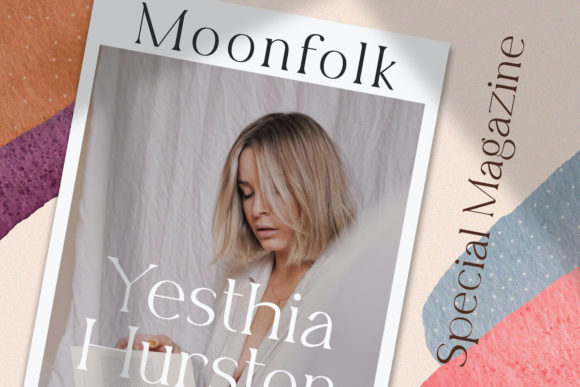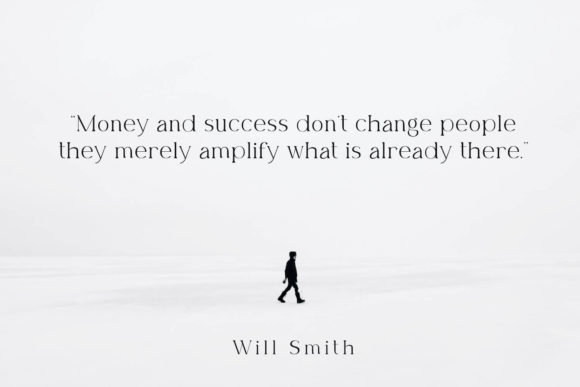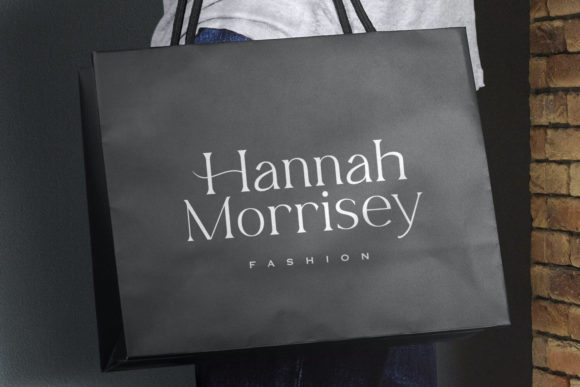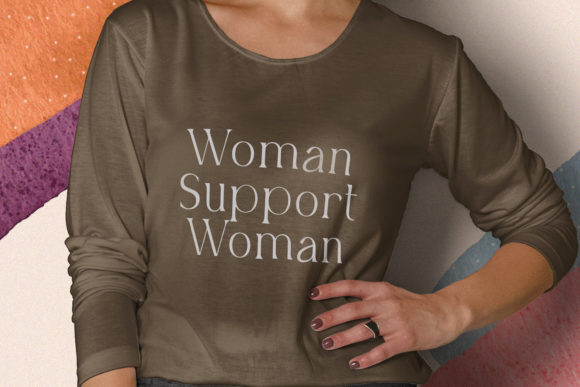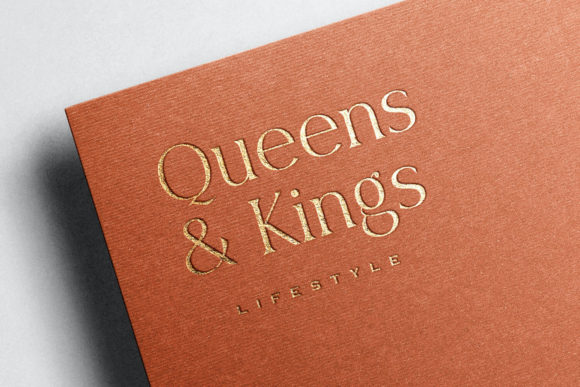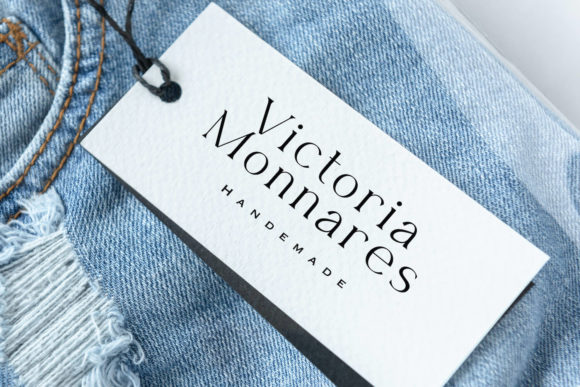
Discover the Perfect Serif Font for Your Next Creative Project
Have you ever stared at a blank page, eager to bring your latest idea to life, only to be stuck on the perfect font to match your vision? We’ve all been there. The search for the perfect font can be overwhelming, but what if I told you that there’s one that can effortlessly elevate your creative ideas?
Meet the Belfina Husairy Font, a charming and authentic serif font that’s perfect for a wide range of projects. Whether you’re designing a logo, creating a book cover, or crafting a marketing campaign, this font is sure to make your work stand out. Its unique blend of classic and modern elements makes it a valuable asset for designers looking to add a touch of sophistication to their projects.
Belfina Husairy Font Key Features
- Unique Characteristics: Belfina Husairy Font features a unique blend of modern and traditional elements, with intricate details and elegant lines, making it perfect for creating visually striking designs.
Belfina Husairy Font Review
Initially, I was drawn to the elegant and refined aesthetic of the Belfina Husairy Font. It has a ✨ sophisticated feel to it, making it suitable for high-end branding and luxury products. The font’s versatility also allows it to be used in a wide range of applications, from headlines to body text.
- ✨ Elegant and refined aesthetic, perfect for luxury branding
- ✨ Versatile font suitable for various applications
- ✨ Great for creating a sophisticated and high-end feel
However, there are some limitations to consider. The font may not be the best choice for casual or playful branding, as it can come across as too formal or serious. Additionally, the font’s intricacies can make it difficult to read at smaller font sizes. ⚠️ Be cautious when using it in situations where readability is crucial.
Overall, I would recommend the Belfina Husairy Font for projects that require a touch of sophistication and elegance. While it may not be suitable for every project, it’s a great choice for those looking to create a high-end or luxury brand image.
Tip: Use Belfina Husairy font for headings and titles to add a touch of elegance to your design.
Tip: Use Belfina Husairy font for presentations and reports to add a touch of professionalism.
Belfina Husairy font is ideal for:
- Editorial and publishing designs
By following these tips and guidelines, you can effectively use Belfina Husairy font to enhance your designs and communicate your message with style and elegance.
What are the font sizes and line spacing recommendations for Belfina Husairy?
For optimal readability, we recommend using font sizes between 12 and 24 points for body text. For headings, use font sizes between 24 and 48 points. Line spacing should be set to 120-150% of the font size to ensure proper legibility and visual hierarchy.